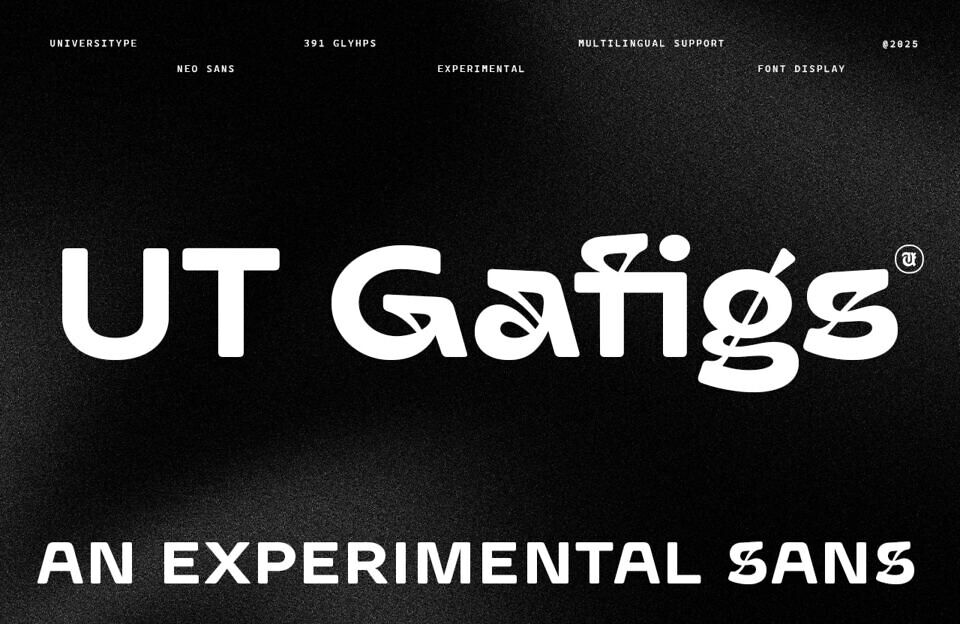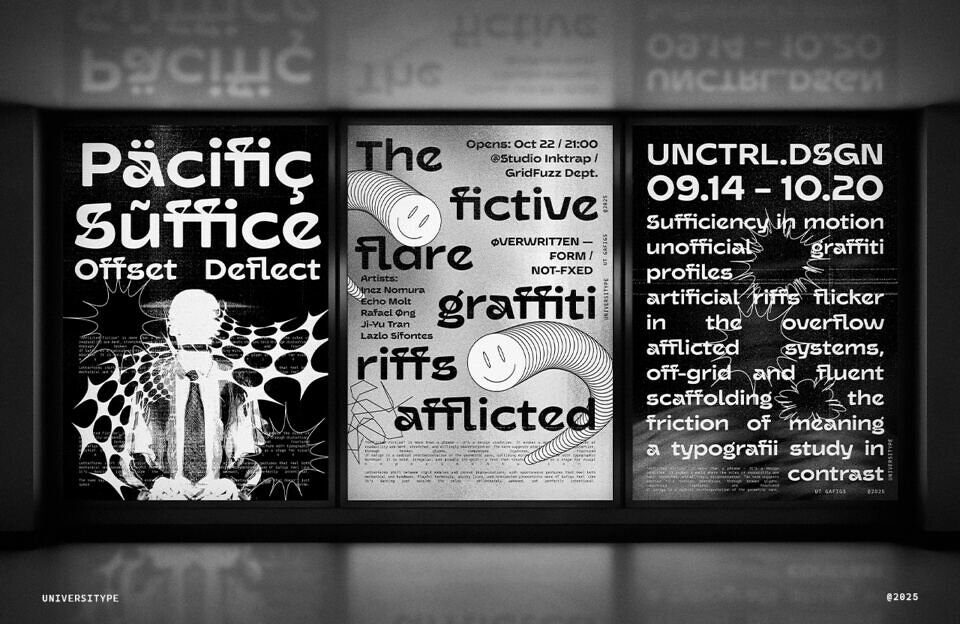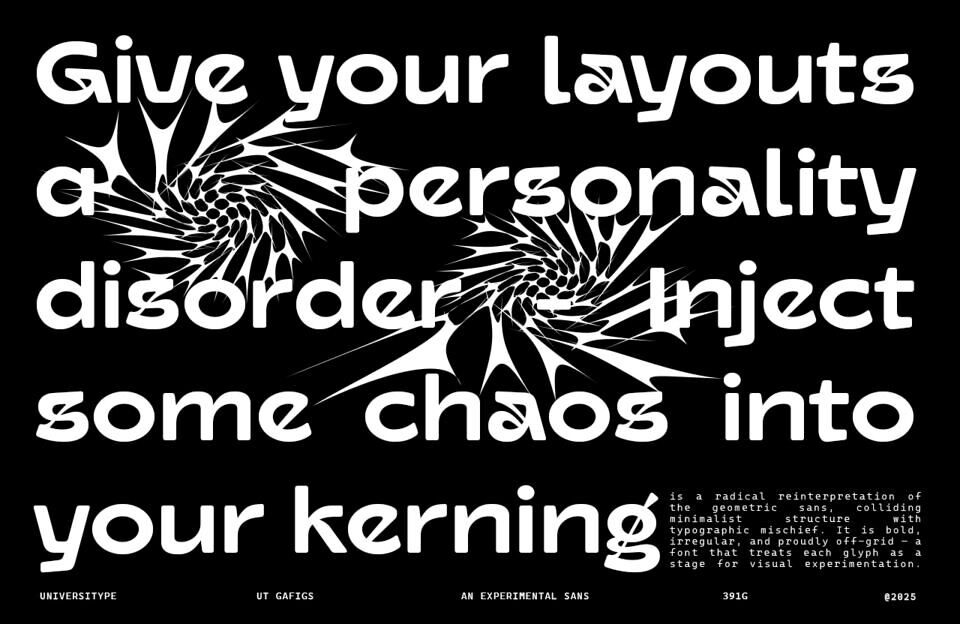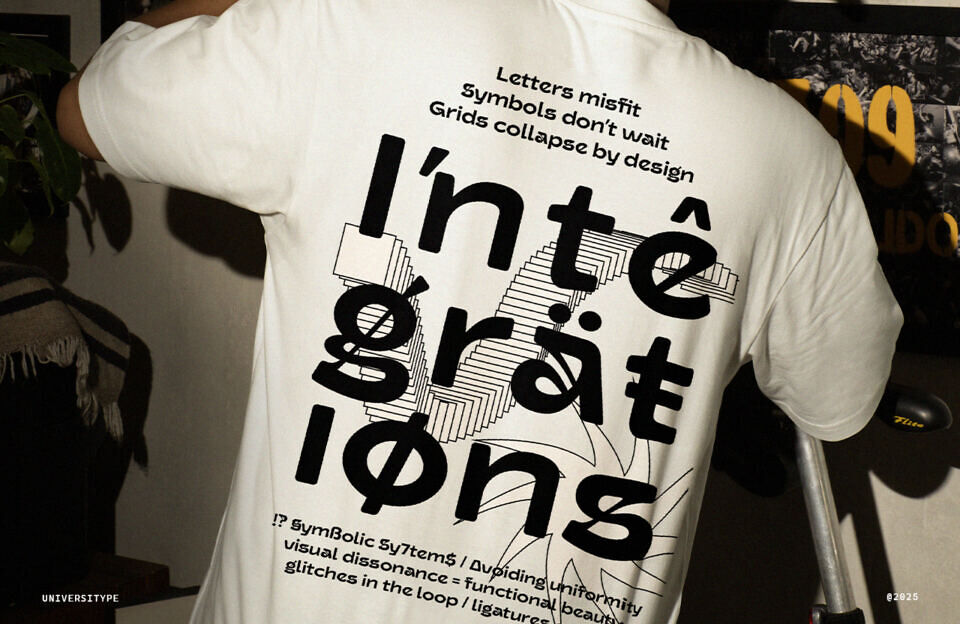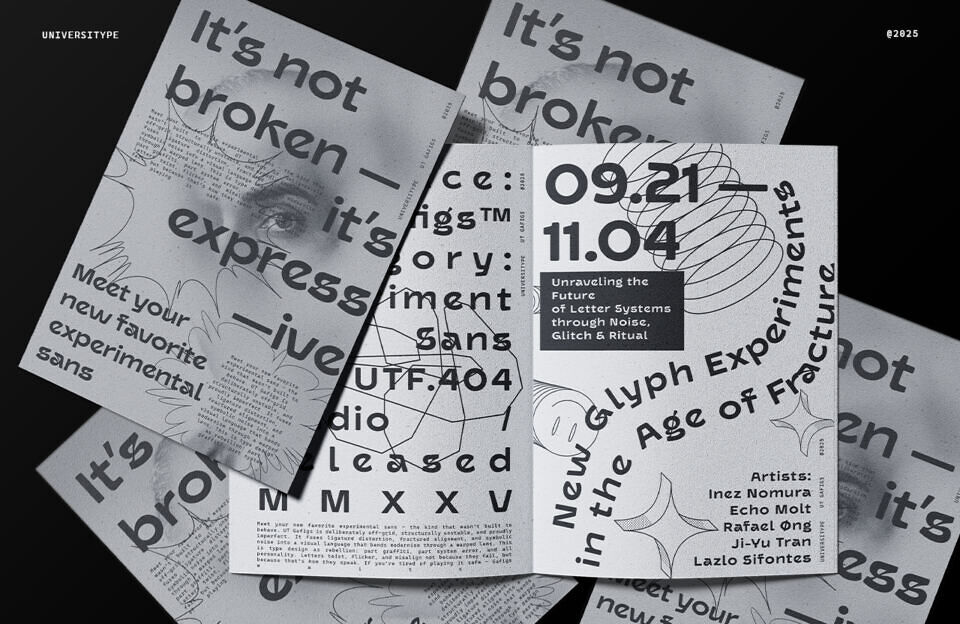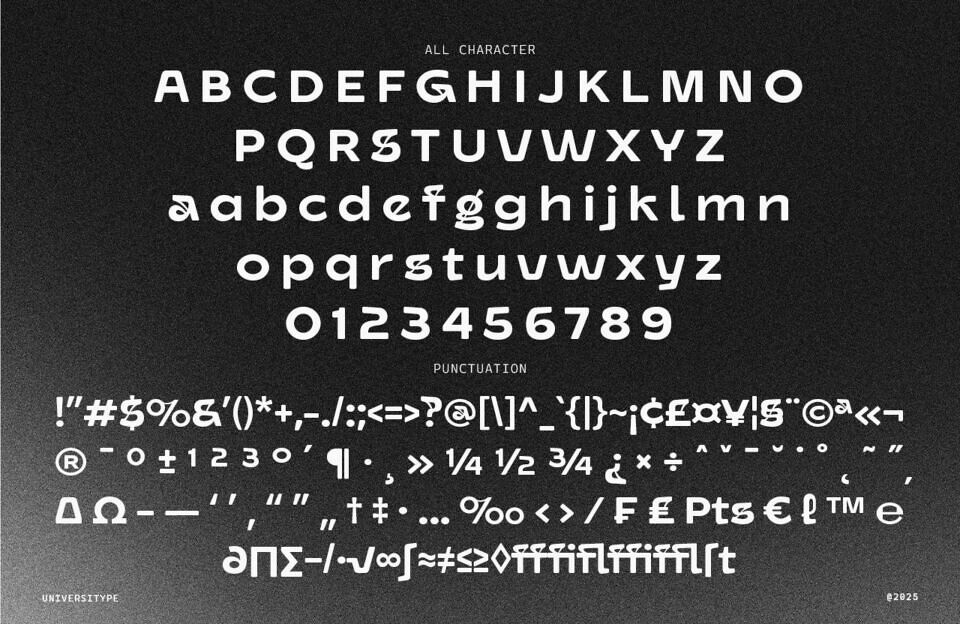
Introducing UT Gafigs, a groundbreaking font that dares to challenge the norms of traditional typography. This experimental sans-serif font is designed for those who seek to infuse their work with a sense of irregularity, chaos, and boldness.
With its single weight and minimalist yet expressive design, UT Gafigs is perfect for creating a strong, cohesive visual identity in any design project.